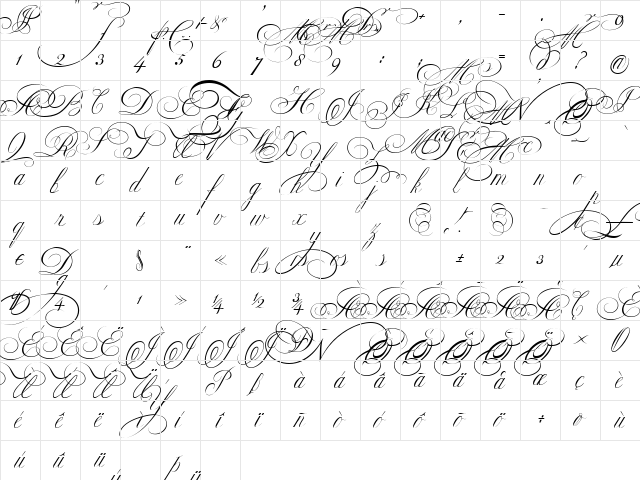
Copper Alt Caps Expert Regular Font Preview
Copper Alt Caps Expert Regular
Copper Alt Caps Expert Regular Font Details
| Designer | Tony Nash |
Design Context for Copper Alt Caps Expert Typeface
Copper Alt Caps Expert is a composed and adaptable typeface that performs quietly and consistently across a wide range of design contexts.